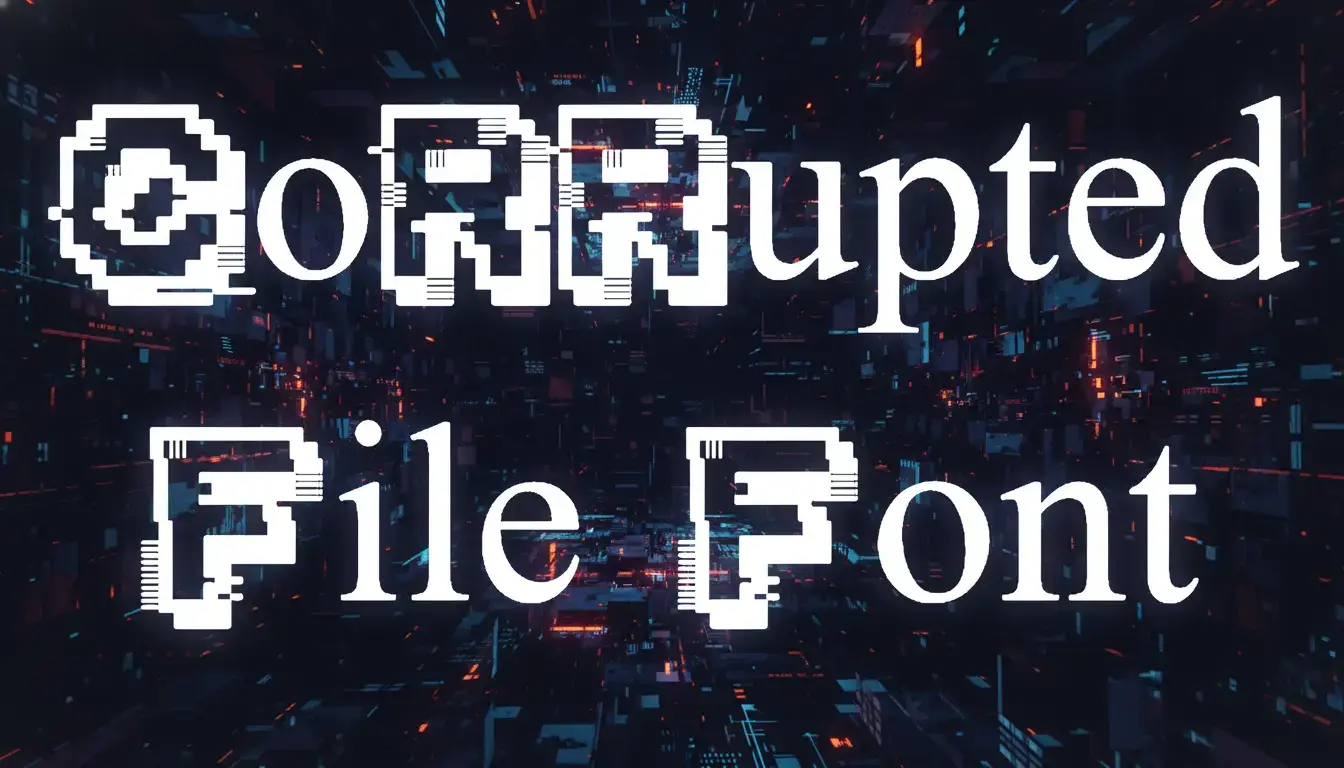
Corrupted File Font
Corrupted File is a fancy font created by imagex. Bold and full of character, it's built to stand out rather than blend in. You can download it for free and test it with your own words in the preview above.
- Characters: A–Z, 1 lowercase letters, 0–9 and basic punctuation
What You Can Type With Corrupted File
Corrupted File has 26 capital and 1 lowercase letters, so a few letters may be missing. Type your exact words in the preview above to check. All ten numbers are included. Everyday marks like &, !, ? and @ are there too. There are no accented letters like é or ñ, so it's best kept to English text.
Where Corrupted File Works Best
Think of Corrupted File for posters, logos and eye-catching headlines. Use it for one standout word or headline and let simpler fonts handle the rest.
Does Corrupted File support accented letters?
No. Corrupted File has no accented letters such as é, ñ or ü, so it's best for English text.